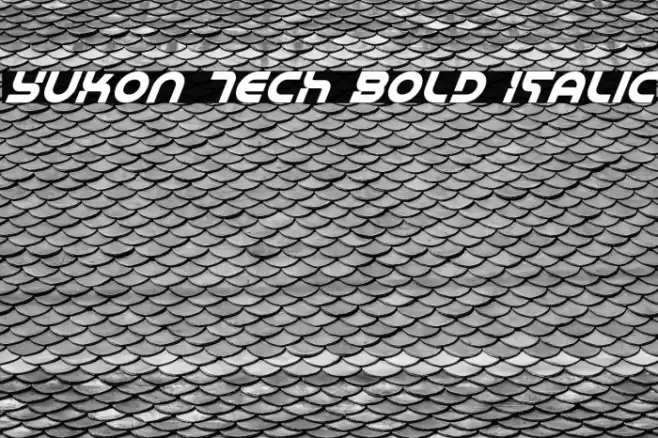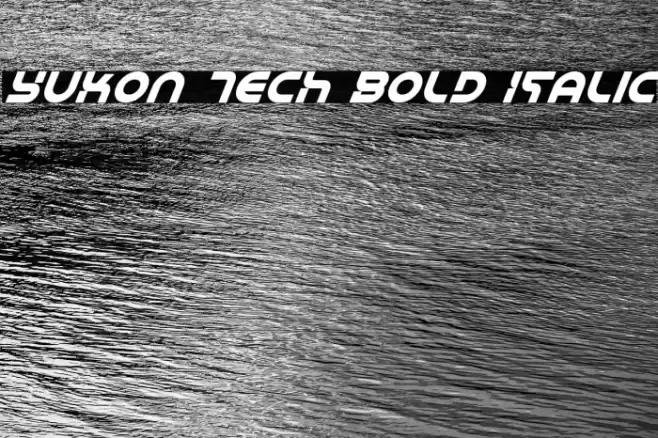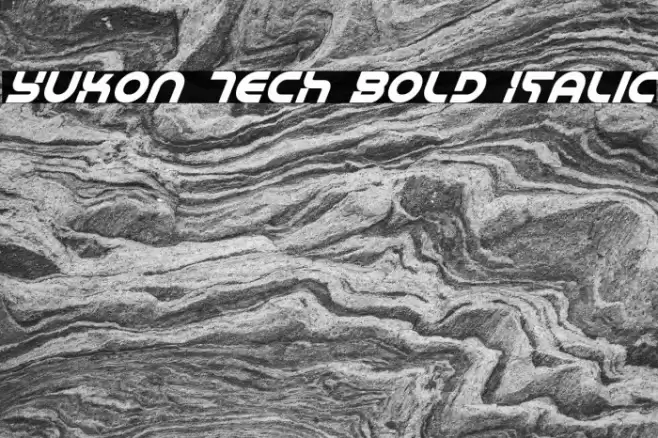
Yukon Tech Bold Italic Font
Yukon Tech Bold Italic Description
This font features a bold and italicized style with a futuristic and tech-inspired design. The characters are uniquely crafted with angular cuts and a forward-leaning posture, giving it a dynamic and energetic appearance. The uppercase and lowercase letters maintain a consistent style, with the lowercase letters slightly smaller in size but equally bold. Numbers are designed to match the overall aesthetic, with similar angular and slanted features. The special characters are also integrated seamlessly, maintaining the same bold and italicized look. This font is perfect for projects that require a modern and edgy touch, such as technology branding, sci-fi themes, or digital interfaces.
A bold, italicized font with a futuristic and tech-inspired design from Uncategorized fonts.
- Proposed Projects: Ideal for technology branding, sci-fi themes, digital interfaces, and modern advertising.